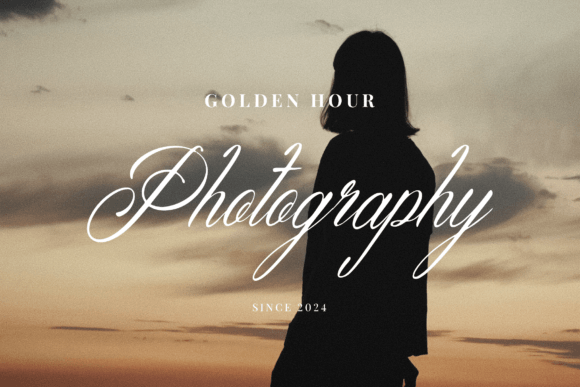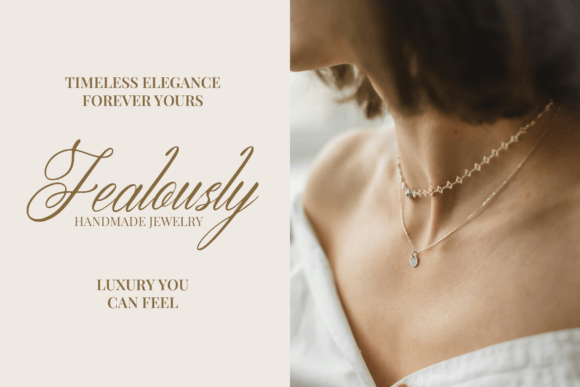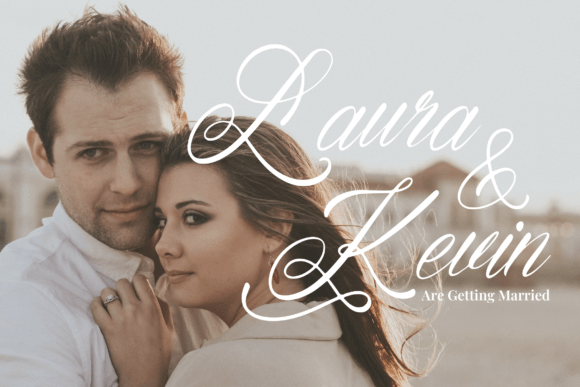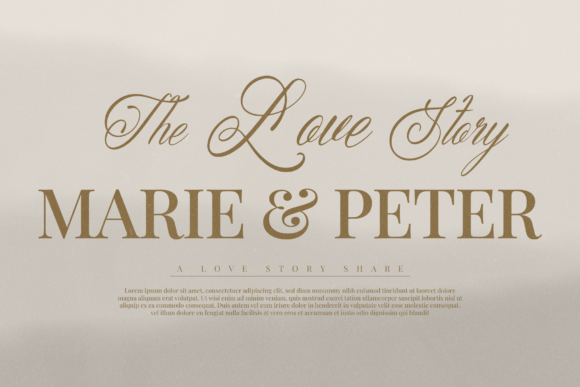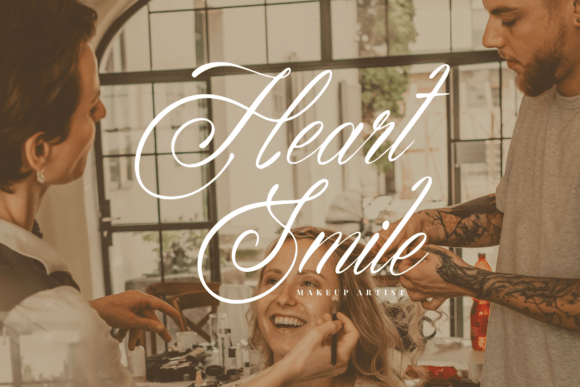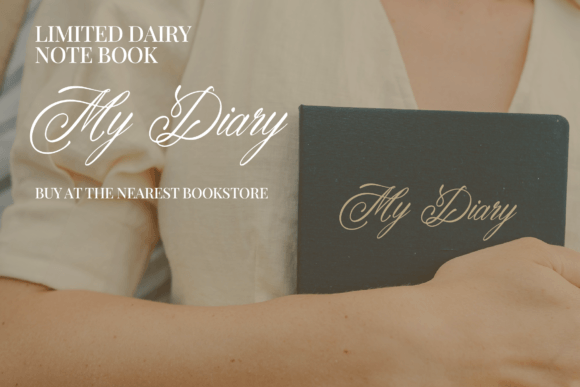
Introduction to Maelten Font
Maelten is a stylish and elegant script font with a modern touch.
Its smooth, flowing letters create a beautiful, sophisticated look, making it great for invitations, logos, and any design that needs a touch of class .
Key Features of Maelten Font